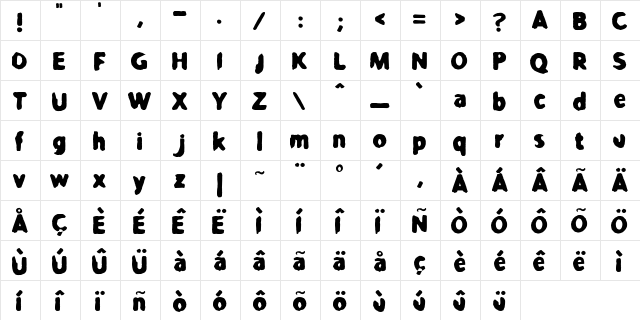
BlueApplet Regular
Design Context for BlueApplet Typeface
BlueApplet is a composed and adaptable typeface that performs quietly and consistently across a wide range of design contexts.